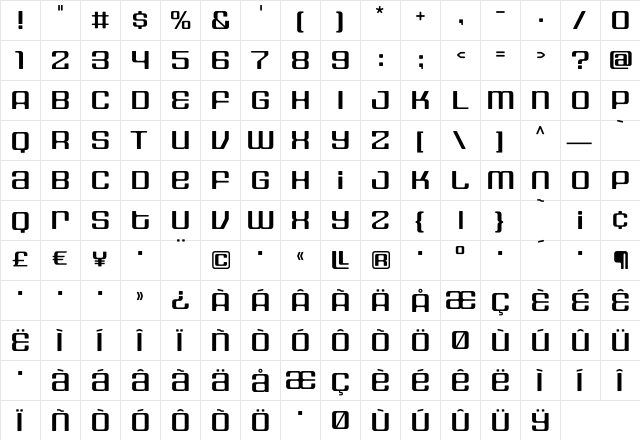
HOUSE3009 Spaceage-Bold-Alpha
Design Context for HOUSE3009 Typeface
HOUSE3009 is a composed and adaptable typeface that performs quietly and consistently across a wide range of design contexts. The heavy weight commands attention and anchors typographic hierarchies.